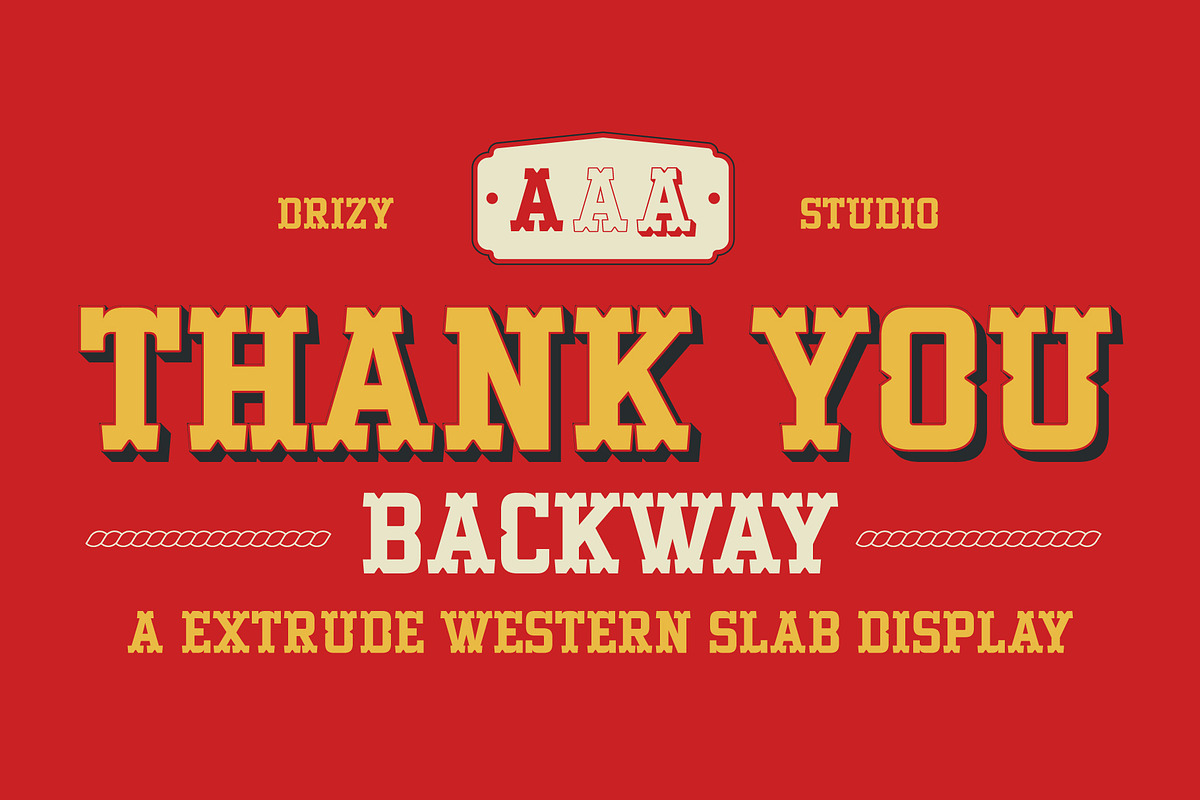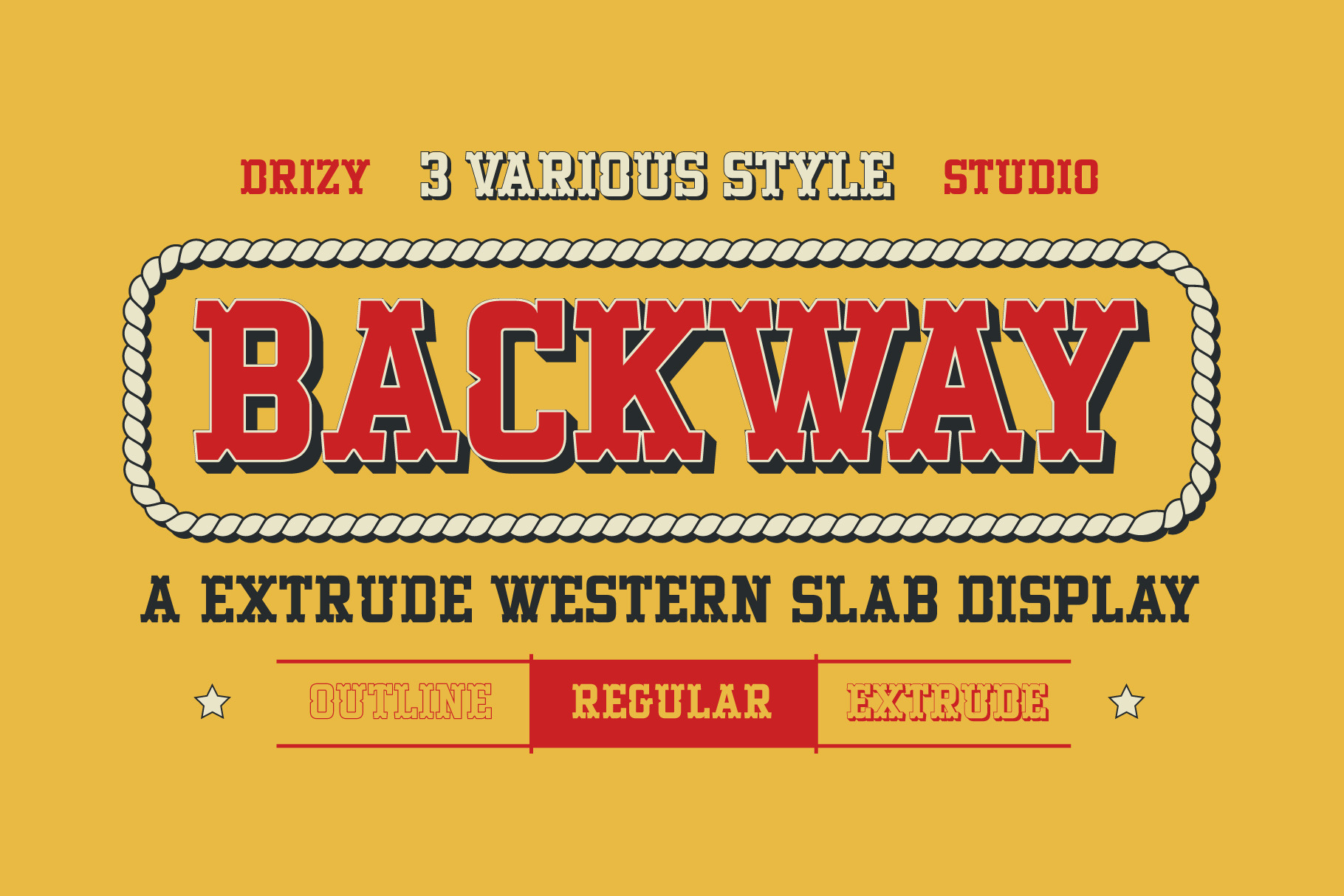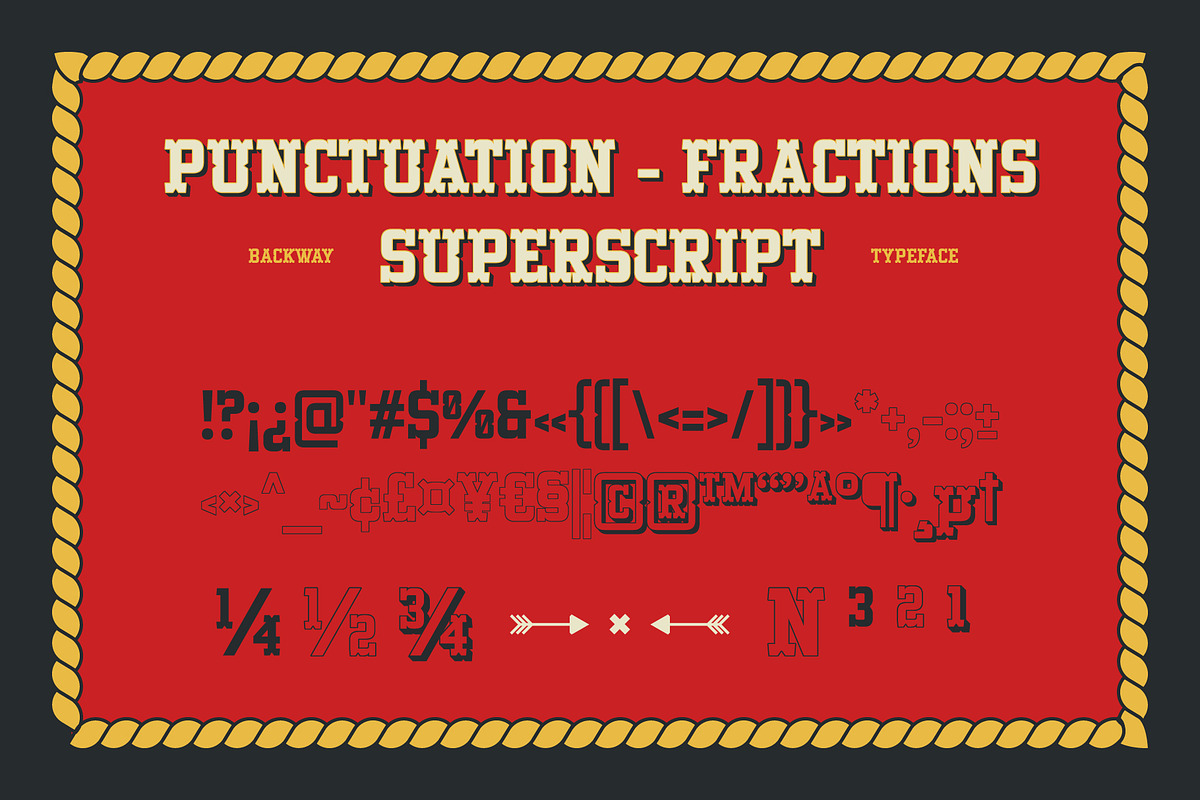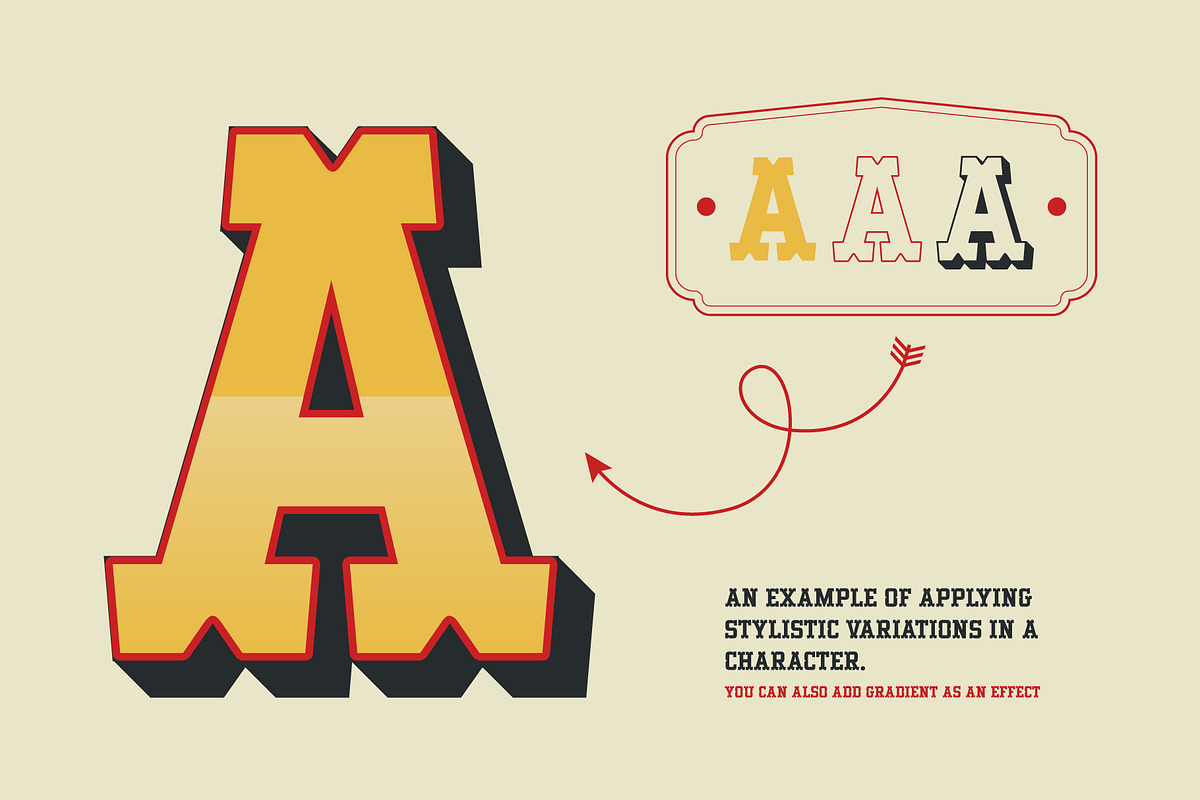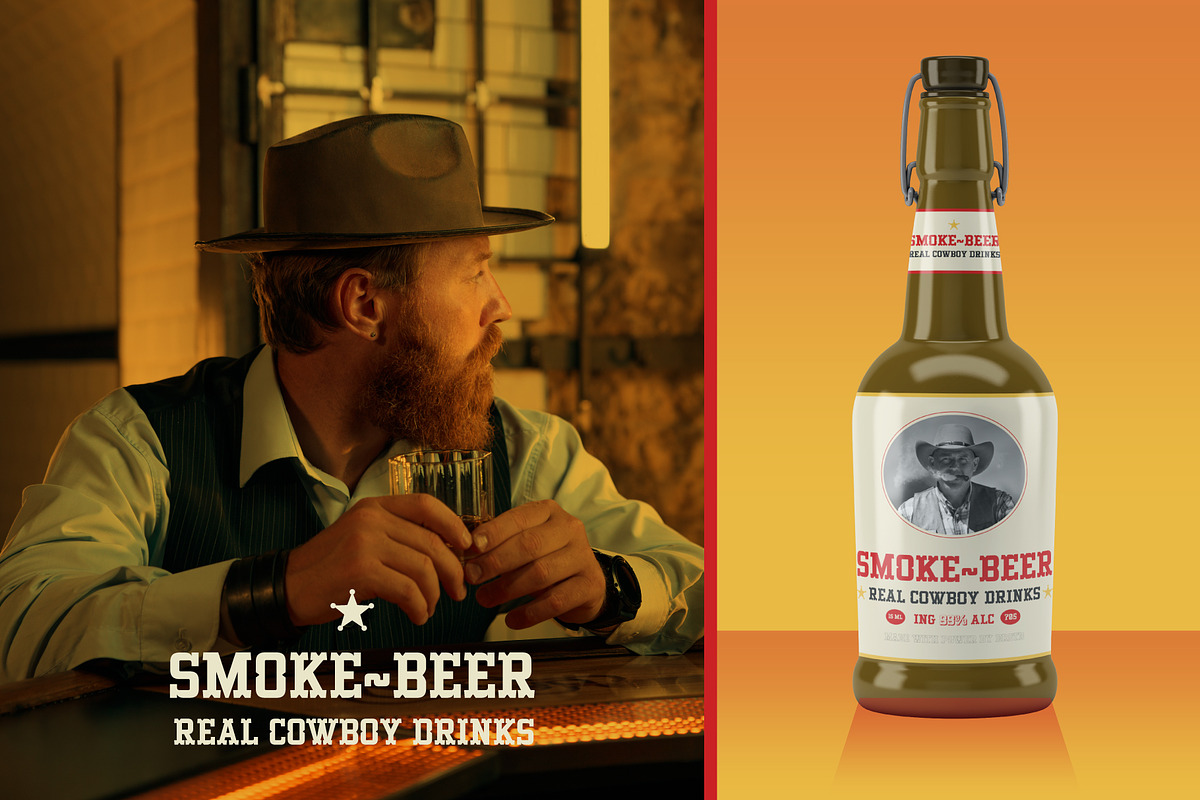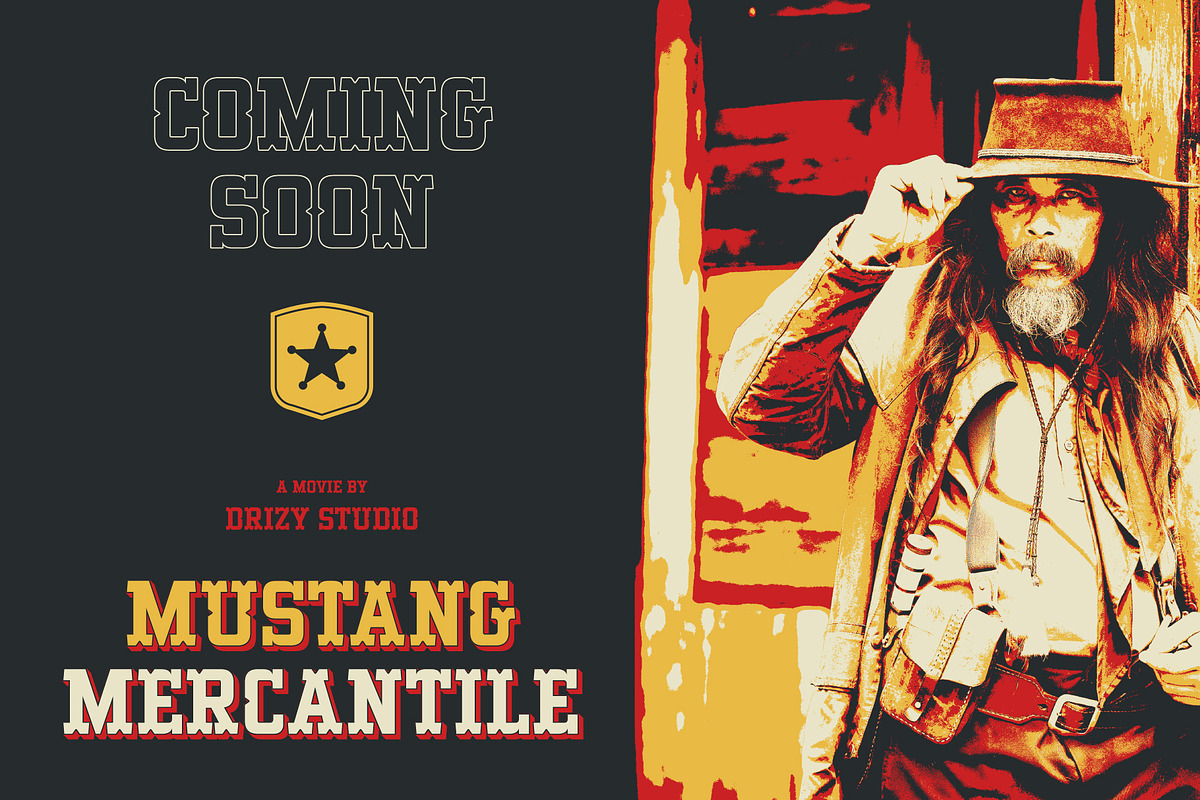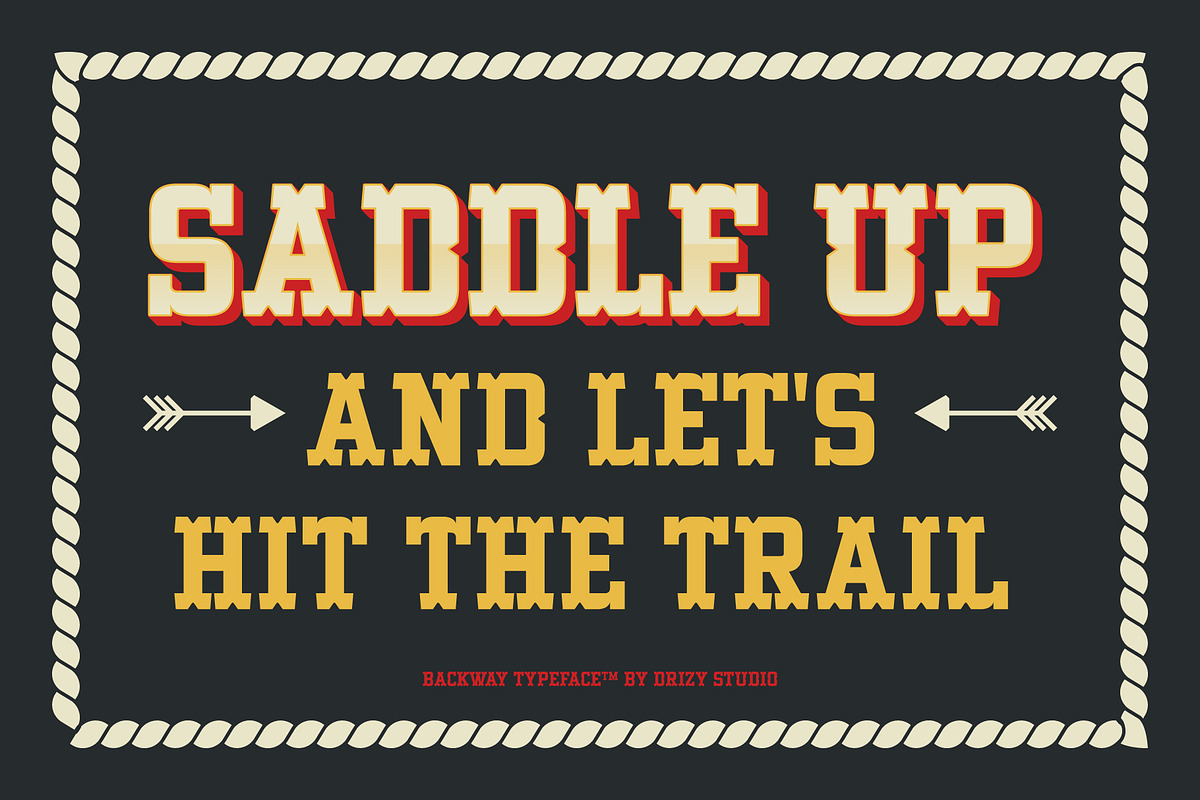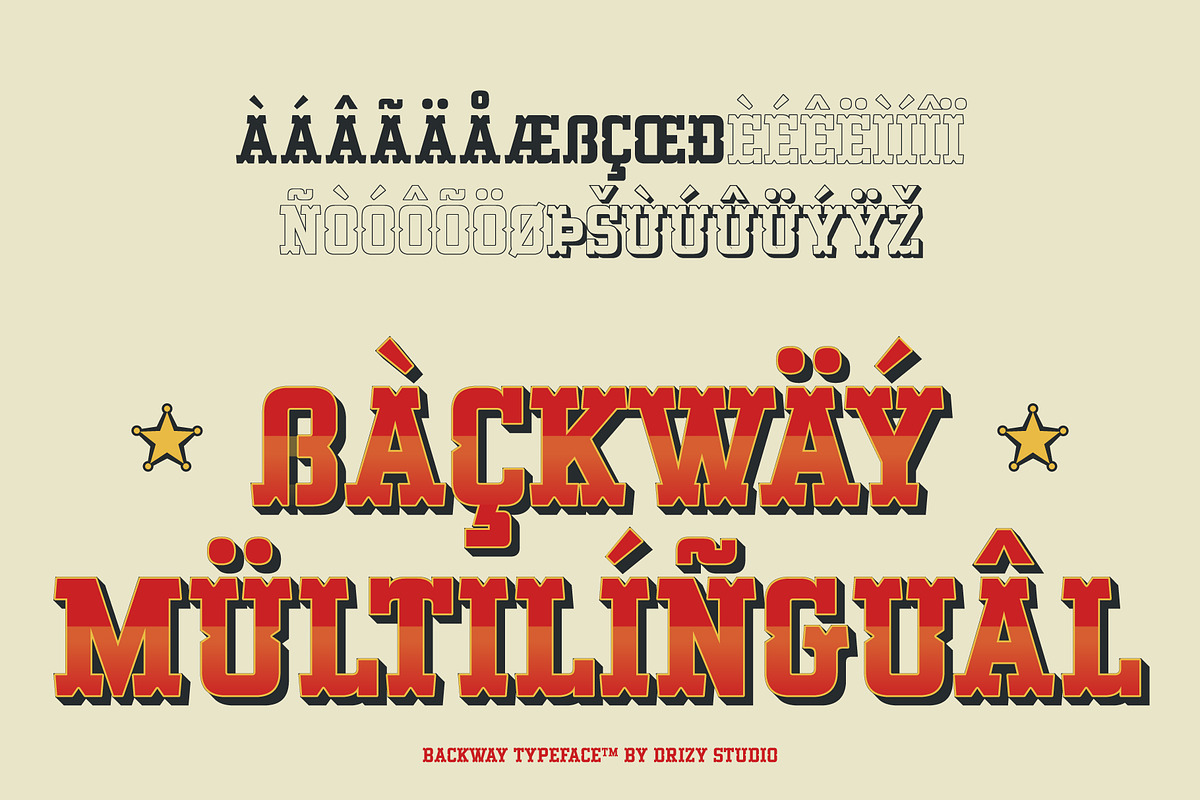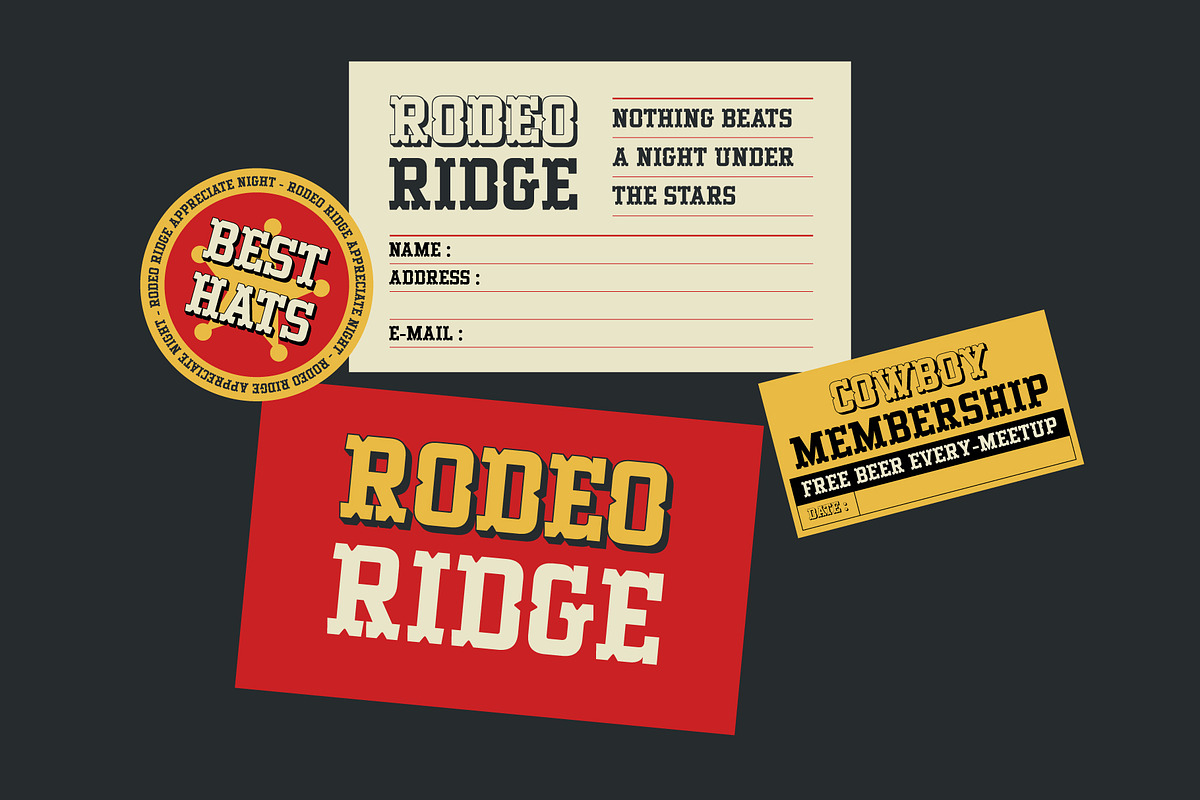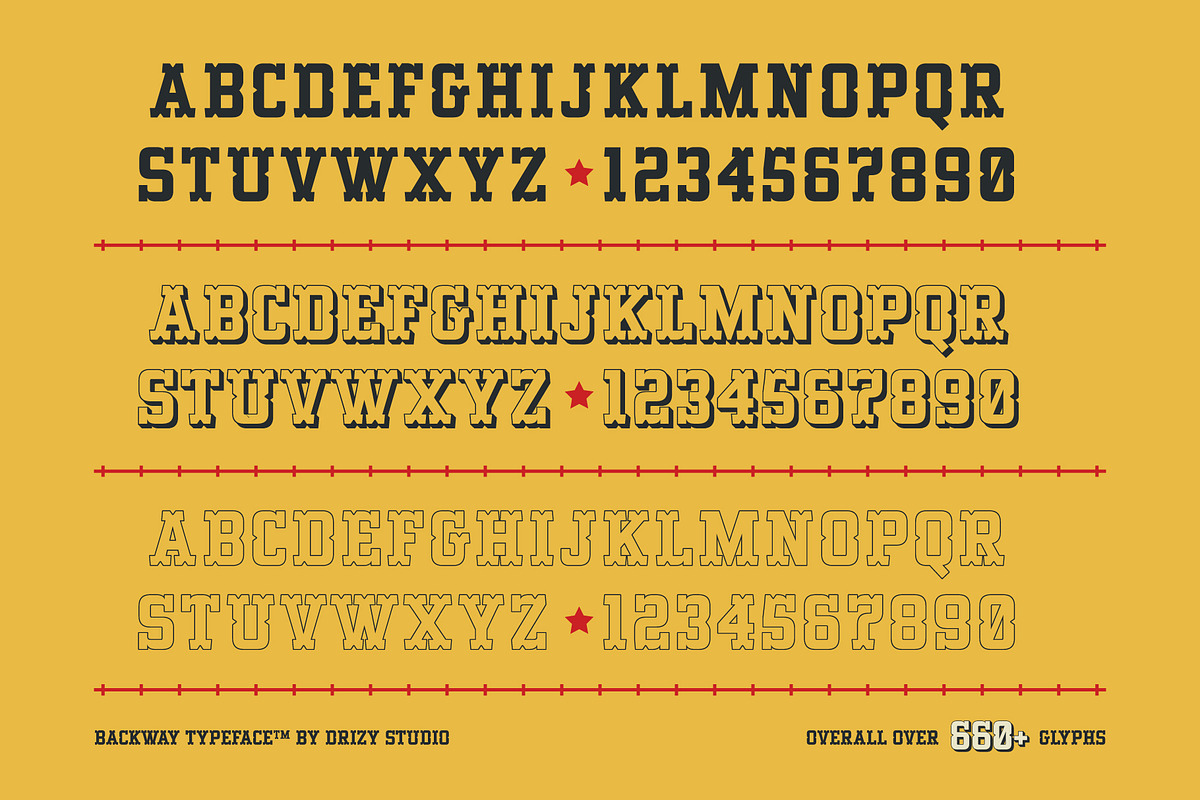
Backway – Extrude Western Slab Font
Backway is a bold and Adventures Patch typeface that combines vintage charm with modern flair. With its rugged edges and striking appearance, this font exudes a sense of exploration and daring. Inspired by classic Western typography, it adds character and personality to any design project, from posters and signage to logos and branding. Whether you’re aiming for a nostalgic vibe or a contemporary twist, Backway is sure to make a bold statement and leave a lasting impression.
Backway features:
- Character Set (All Caps)
- Punctuation & Numbers
- Variable: Outline, Regular, Extrude
- Family Font
Elevate and explore the design possibilities with this Advetures patch Design Font!